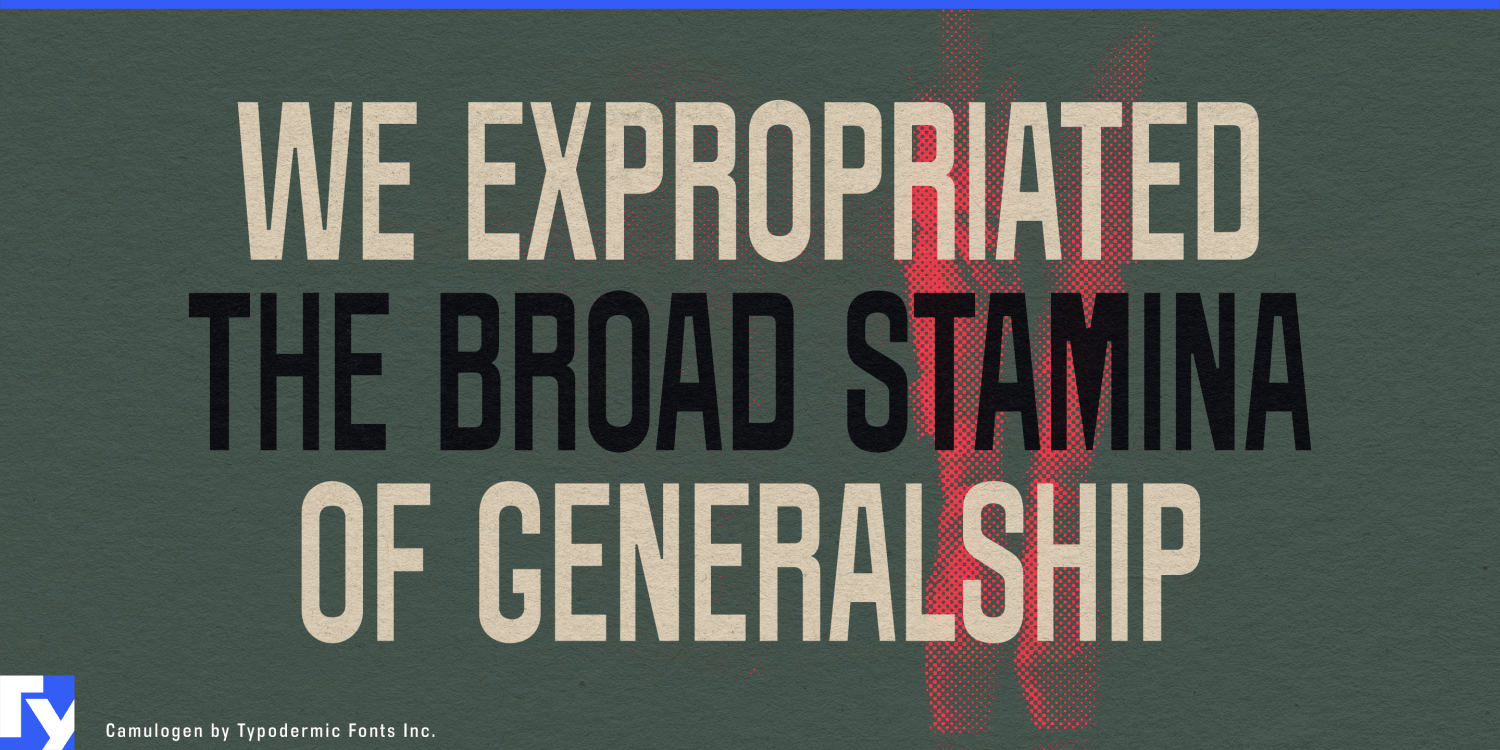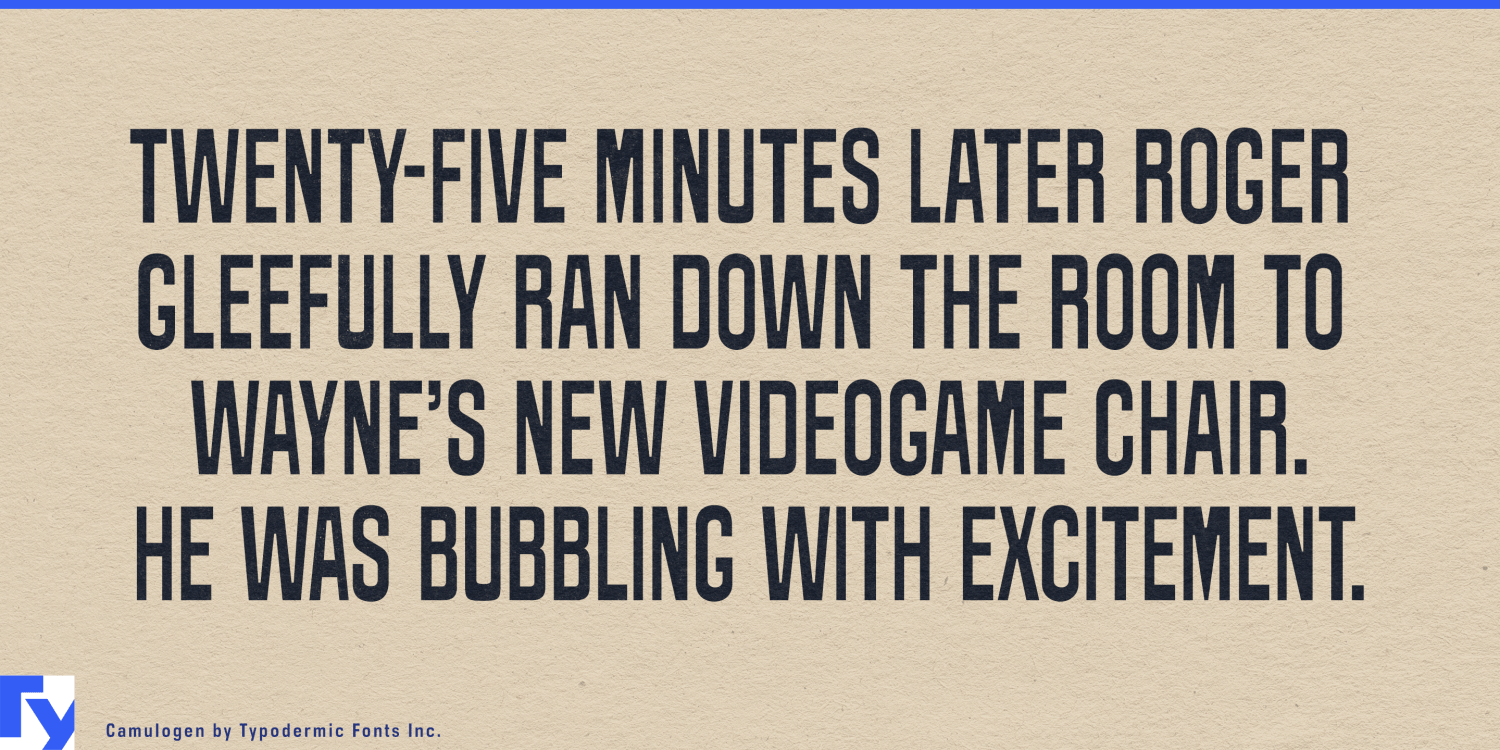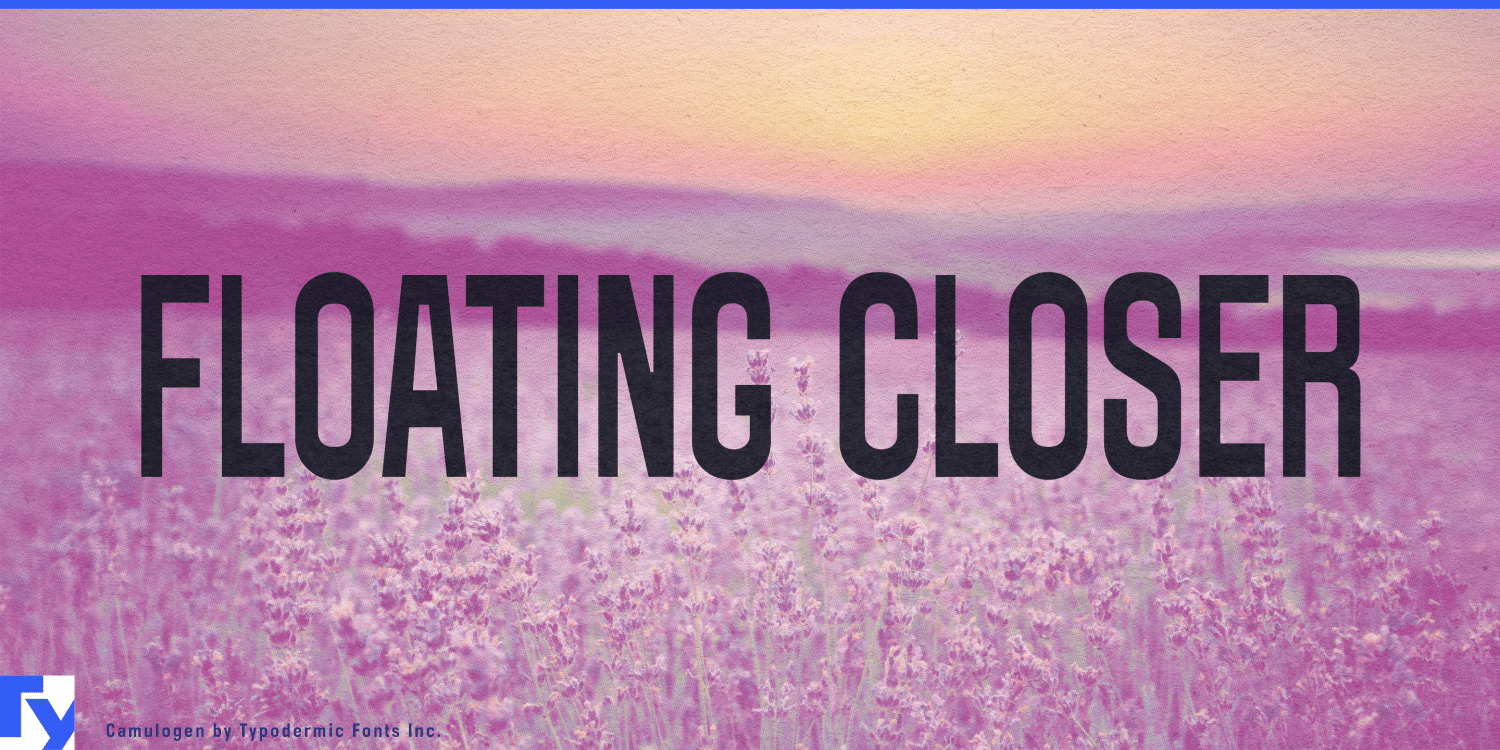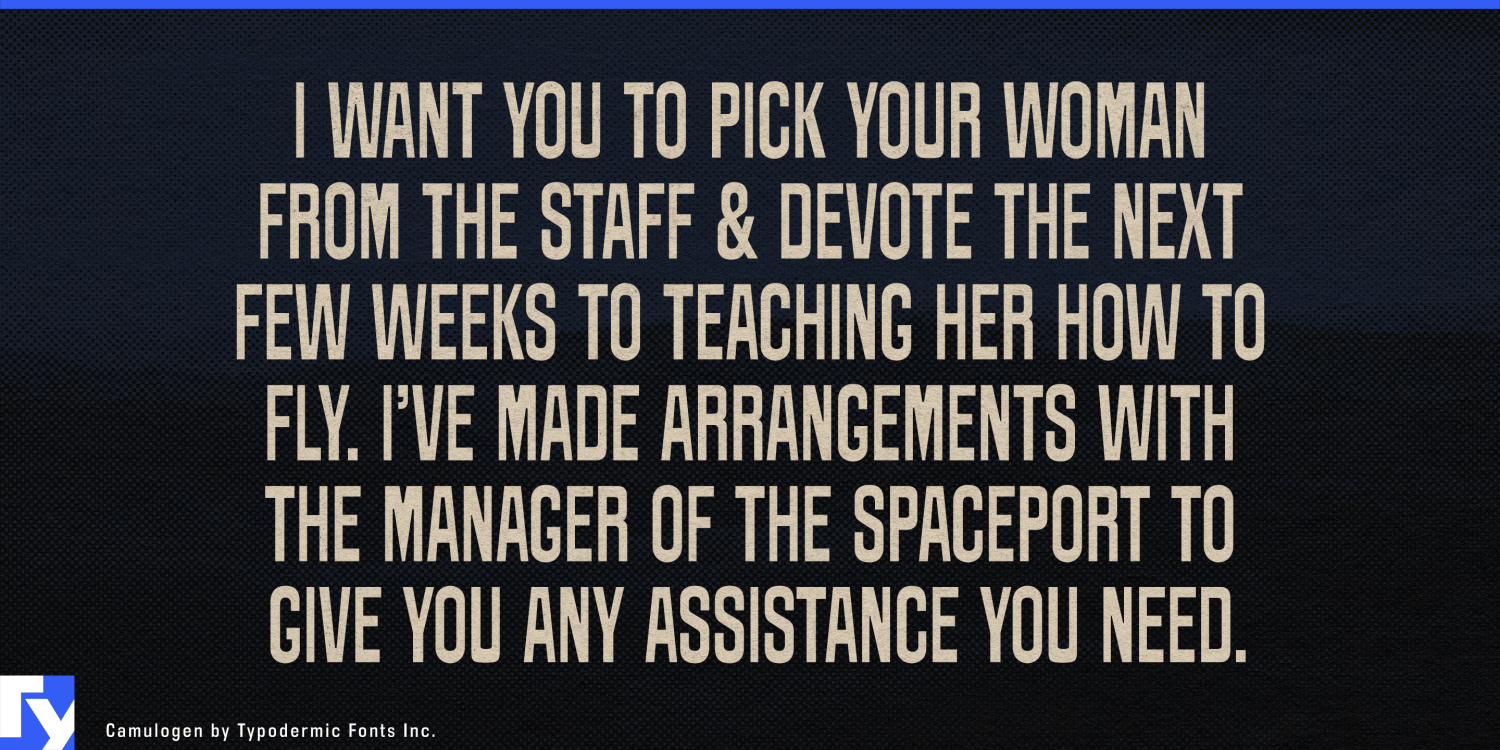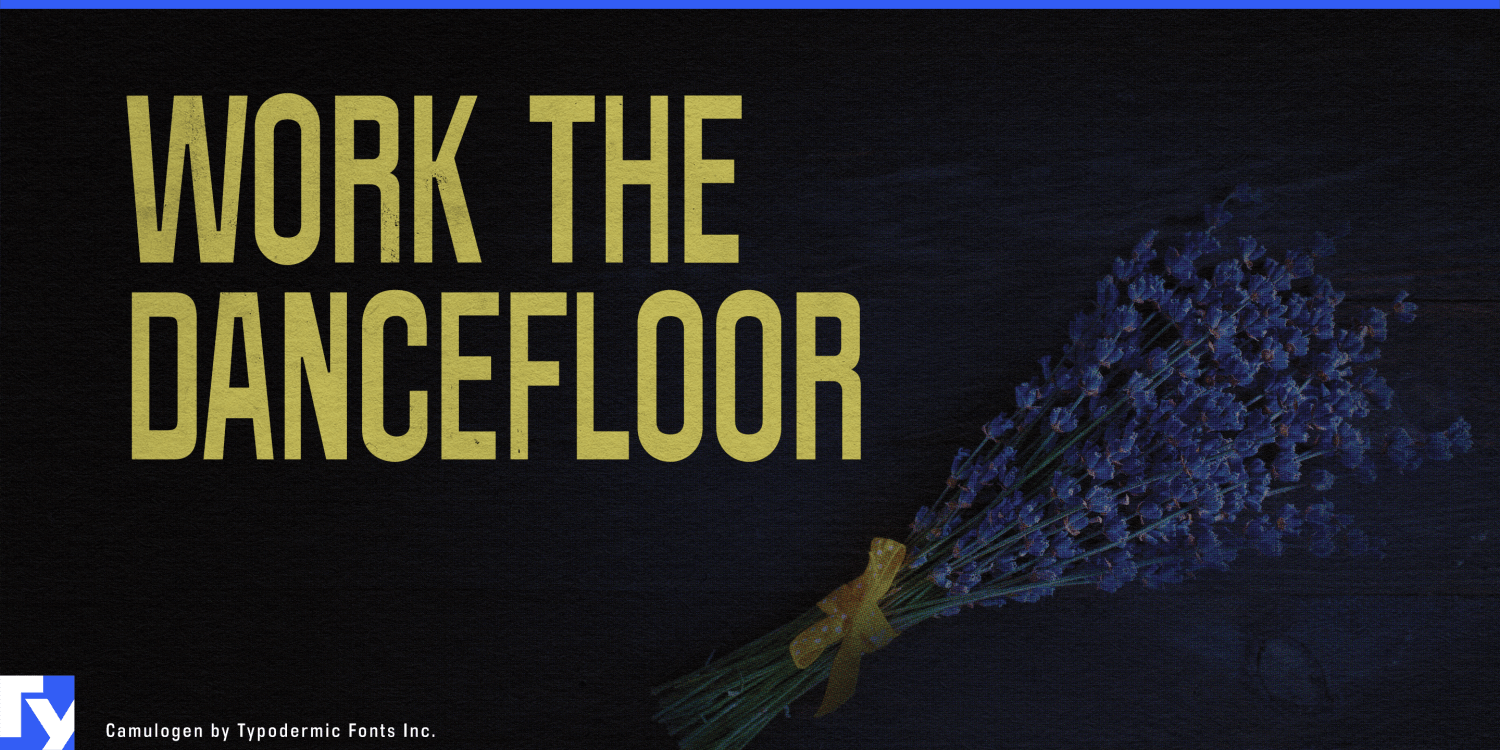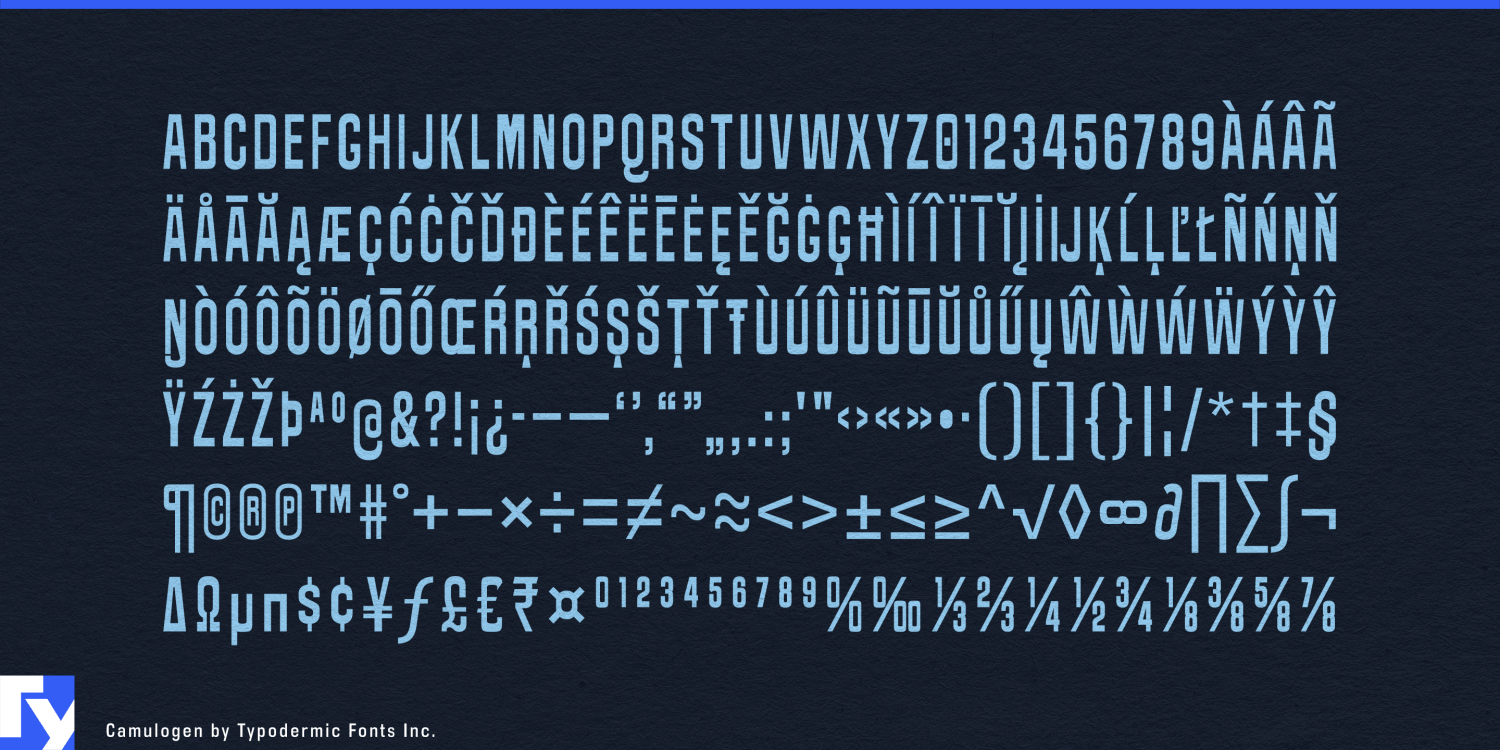
Camulogen
Font Family by Typodermic
Camulogen is built for headlines that need to occupy space. Its compact proportions let substantial words fit into narrow formats, but the heavy strokes keep the result from feeling economical or restrained. Set large, the letters form dense bands of ink; slight irregularities in the curves and stroke widths prevent those blocks from becoming sterile. The effect becomes especially strong in bold color schemes, where the typography can do much of the graphic work before illustration or ornament is added.
Performing-arts campaigns are natural territory. Theatre seasons, contemporary circus, dance festivals, comedy programmes, and cabaret events often need production titles to survive across street posters, transit advertising, building banners, programme covers, foyer screens, and social promotions. Camulogen can turn those titles into large blocks of saturated color while its compact width leaves room for long names and changing event information.
Film festivals present the same problem across a larger system. Dozens of film titles, programme strands, venue names, catalogue dividers, and daily schedule posters all need to feel related without becoming repetitive. Camulogen’s dense construction lets typography become the campaign image itself, with each title filling the available space with the weight of a printed poster.
Combat and exhibition sports can use that same mass more aggressively. Boxing cards, wrestling events, strongman competitions, track cycling, and special exhibition matches need fighter names, bout titles, arena banners, weigh-in graphics, merchandise, and broadcast promotions. Camulogen brings the force of event-poster typography without relying on collegiate lettering, military stencils, or distressed athletic clichés.
Bold food and beverage systems offer another strong use. A canned aperitif range, tonic line, confectionery series, preserve collection, or specialty pantry brand can assign a saturated palette to each variety and let the product name become the dominant label element across cans, cartons, tins, shelf displays, and campaign posters.
Food halls and market-style hospitality can extend the same language into space, using color to distinguish bakery, butcher, oyster, produce, rotisserie, and prepared-food sections while Camulogen holds department names, hanging signs, wall graphics, packaging, and seasonal promotions together.
Camulogen is most effective when the letters are expected to carry the color. It gives posters, packages, banners, walls, and event graphics a dense printed presence, turning short headlines into substantial pieces of the composition rather than simply labels placed inside it.